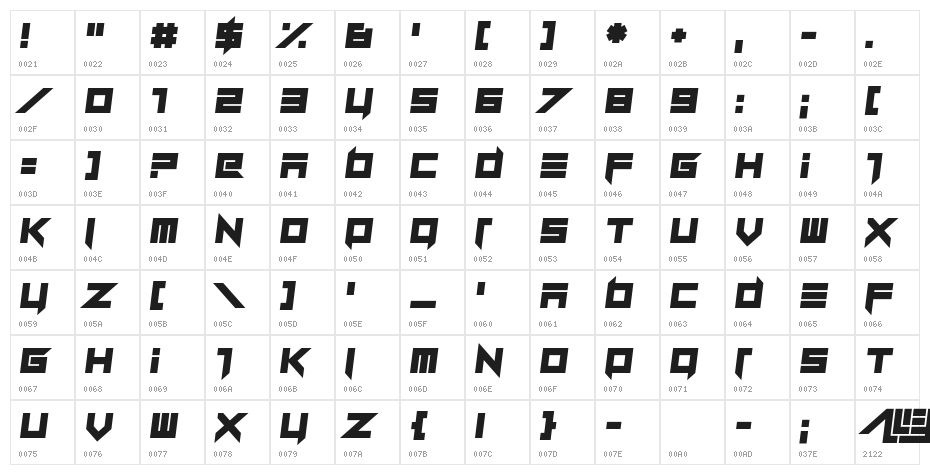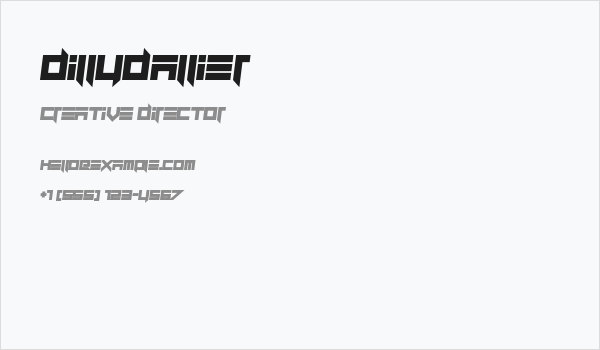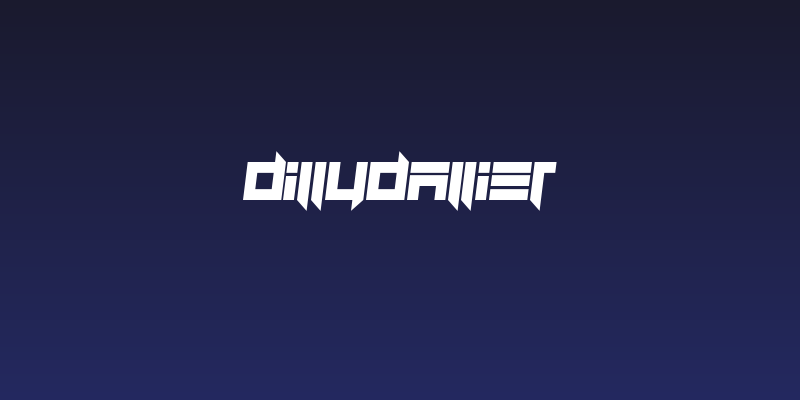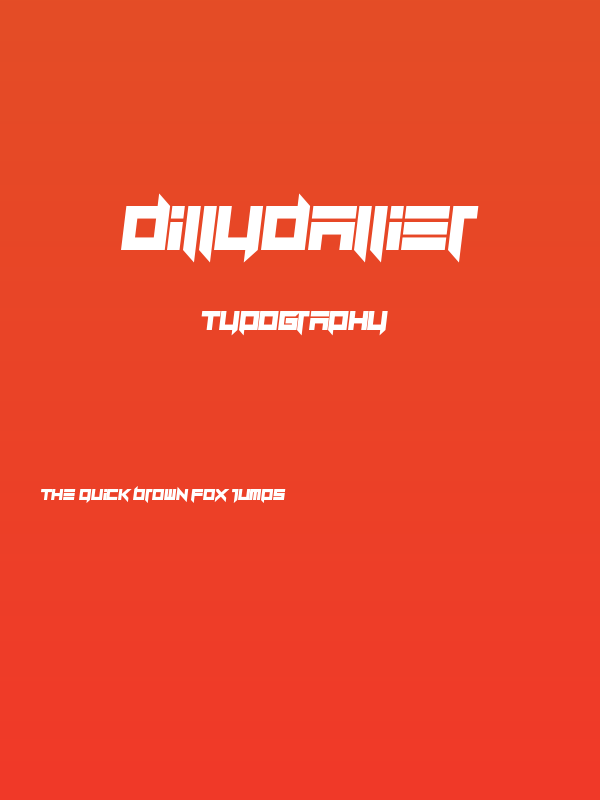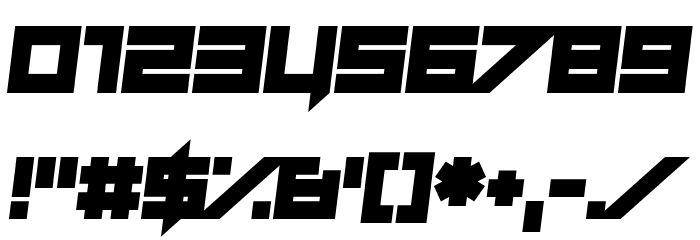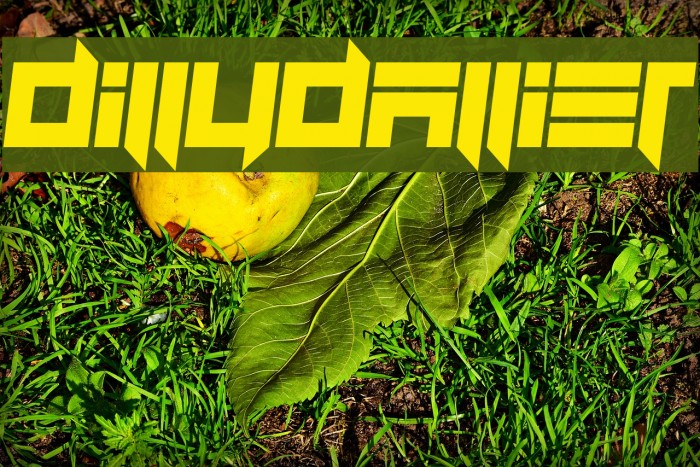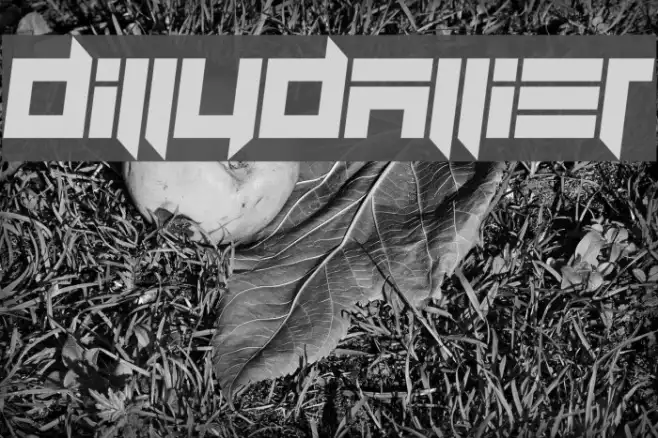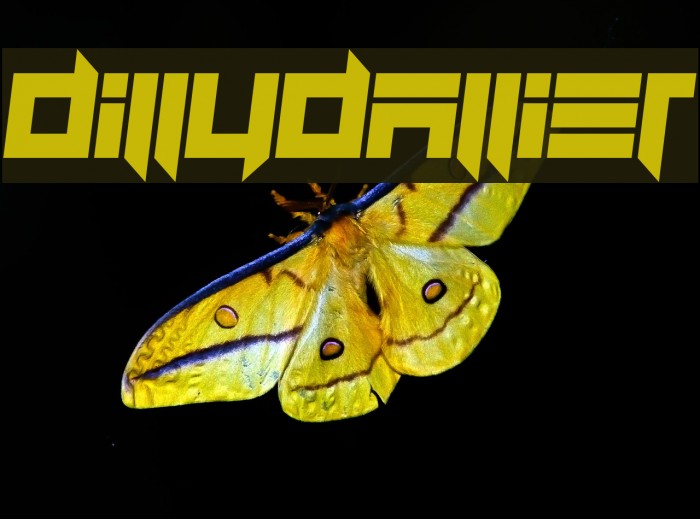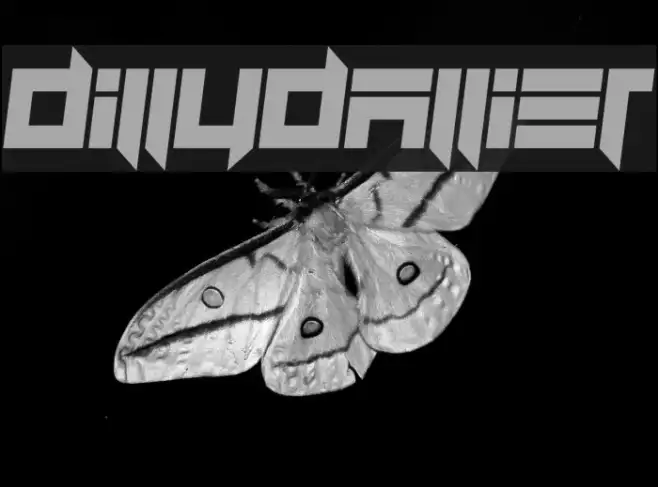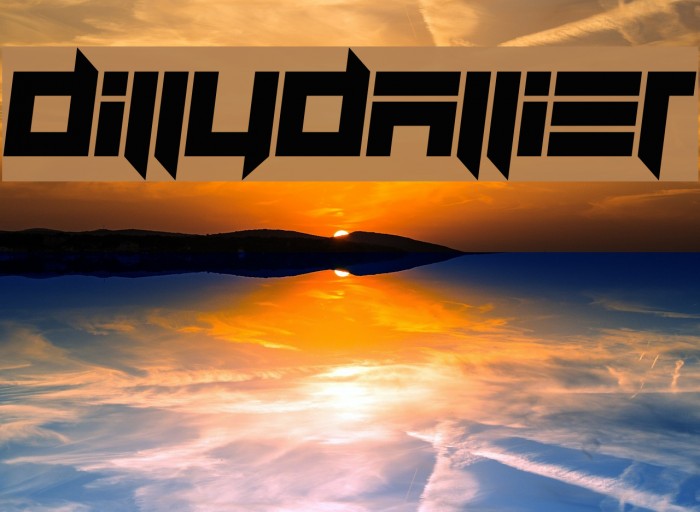
Dillydallier Font
Dillydallier Description
This font features a bold and angular design with a futuristic and aggressive aesthetic. The characters are constructed with sharp edges and geometric forms, giving it a dynamic and edgy appearance. The uppercase and lowercase letters maintain a consistent style, with the uppercase being slightly more pronounced. The numbers and special characters follow the same design principles, ensuring uniformity across all glyphs. The font's unique style makes it stand out, making it ideal for projects that require a strong visual impact.
| Overall Style | Futuristic |
| Proposed Projects | Ideal for video game titles, sci-fi movie posters, sports team logos, and edgy branding materials. |